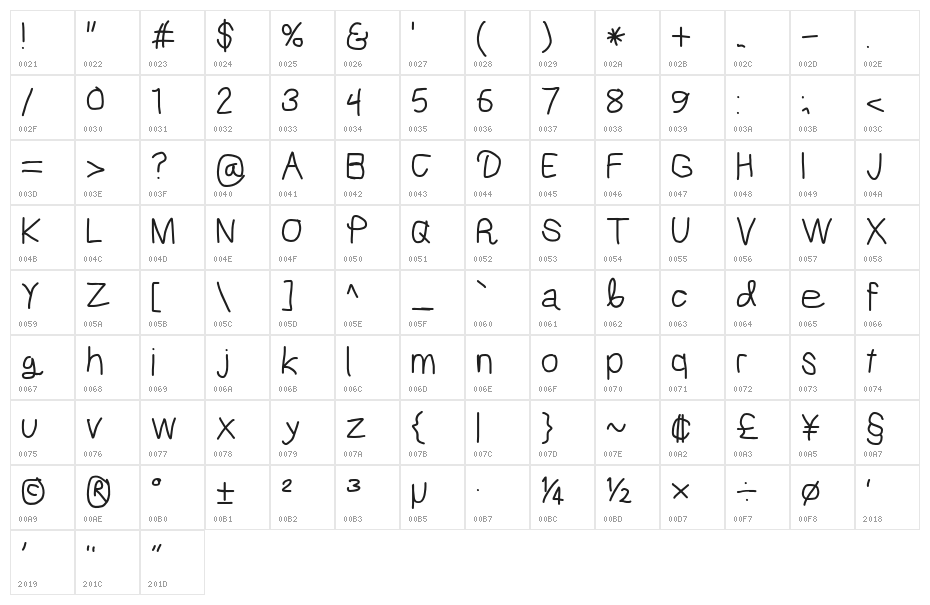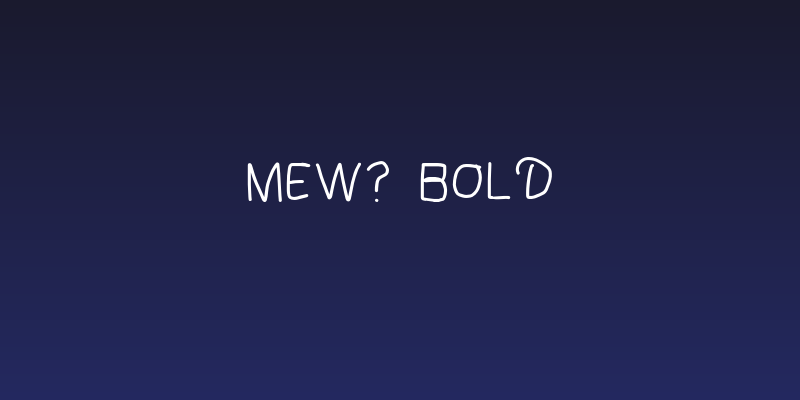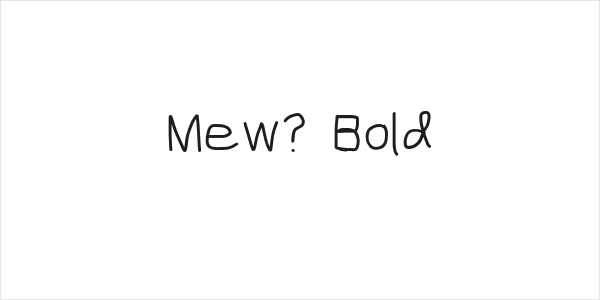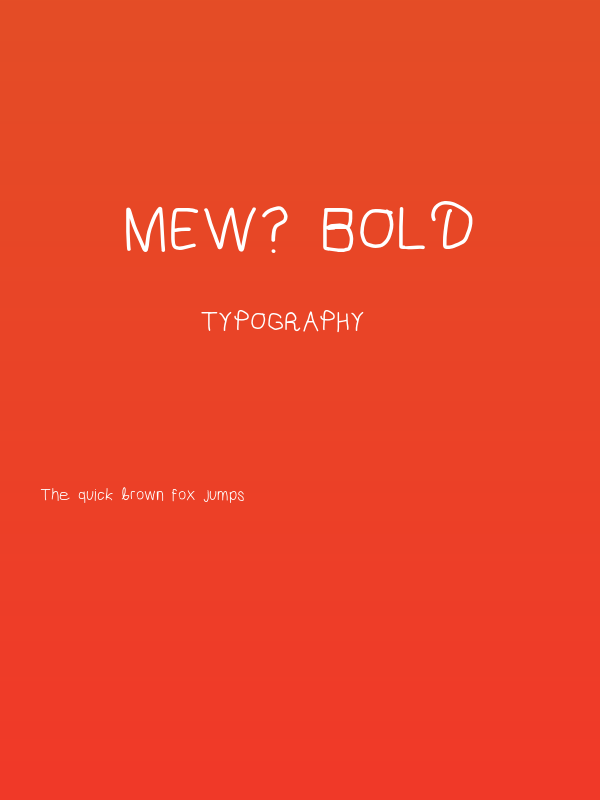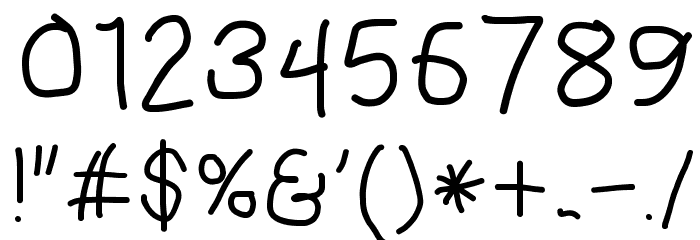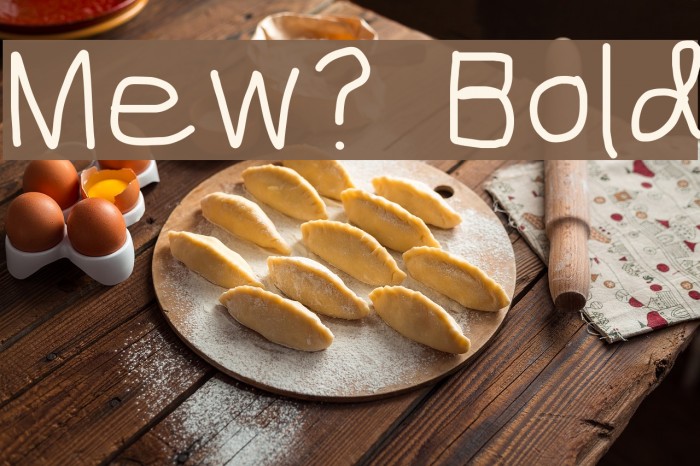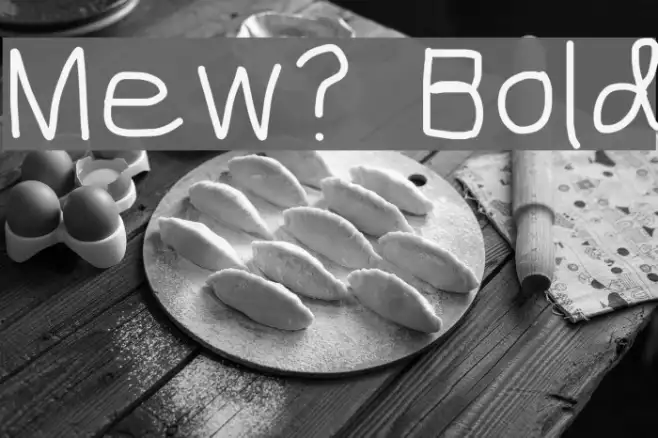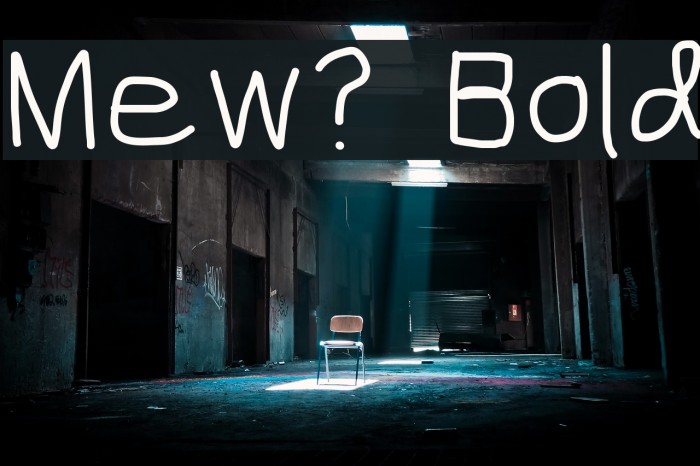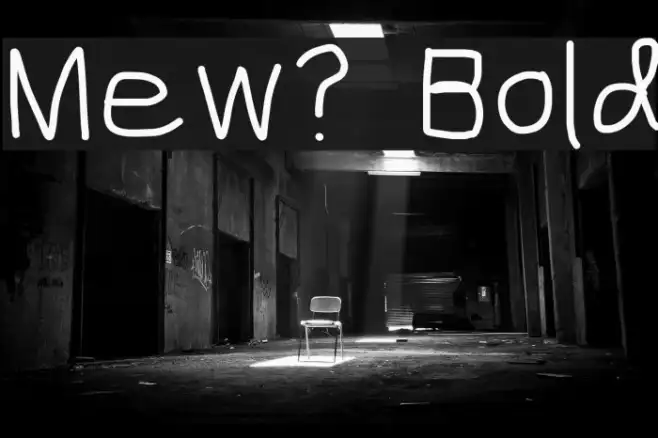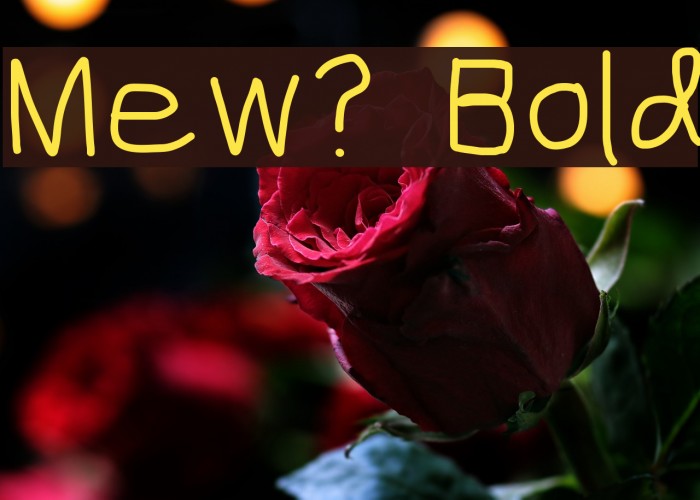
Mew? Bold Font
Mew? Bold Description
This playful and whimsical font features a handwritten style with a casual and friendly appearance. The characters are slightly irregular, adding a touch of personality and charm. The uppercase letters are bold and rounded, while the lowercase letters maintain a consistent flow with gentle curves. Numbers and special characters follow the same playful design, making the font versatile for various creative projects. The overall look is approachable and informal, suitable for designs that aim to convey warmth and friendliness.
| Proposed Projects | Ideal for children's books, greeting cards, playful branding, and informal invitations. |